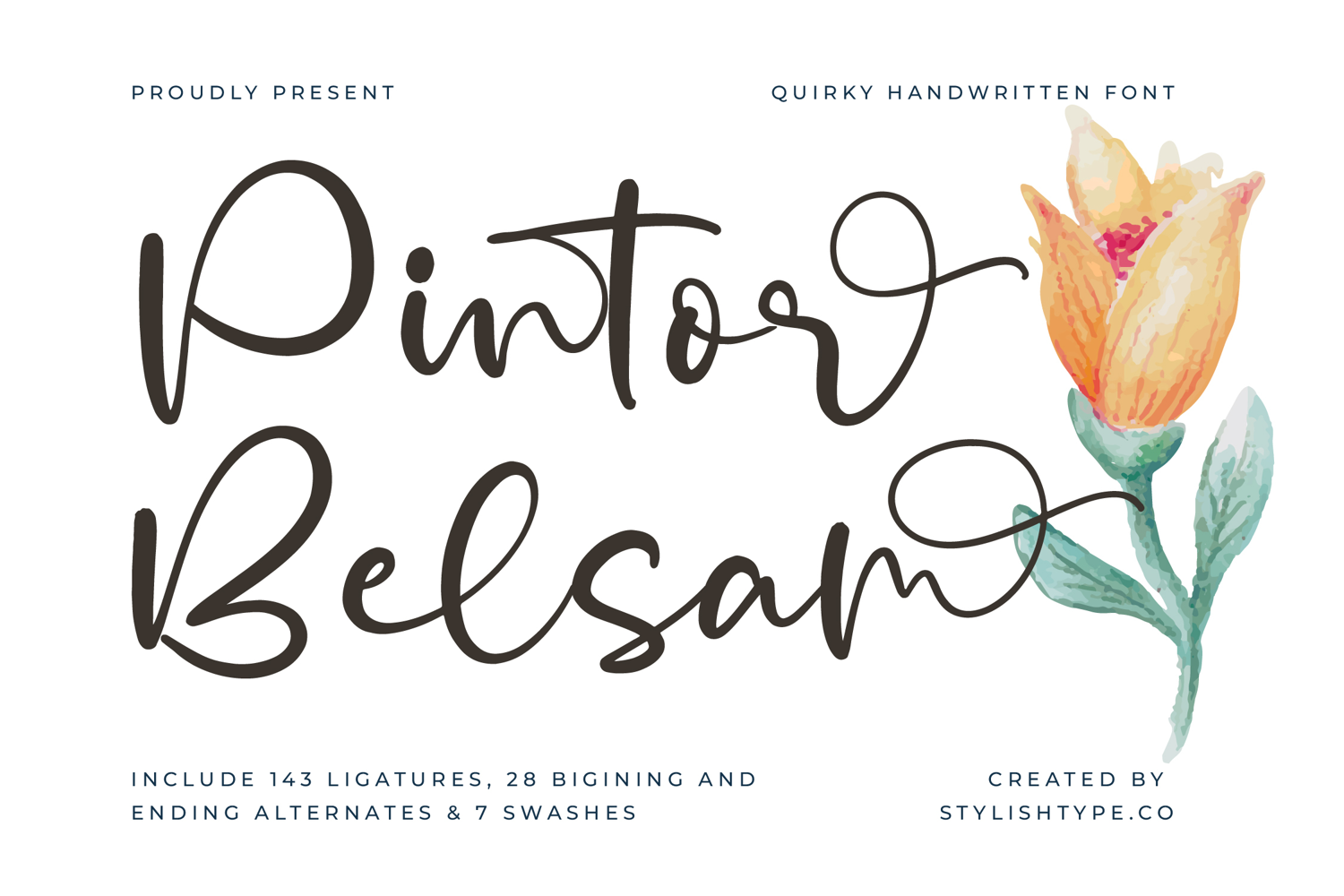
Pintor Belsam - Quirky Handwritten Font
Pintor Belsam
Pintor Belsam Italic
Pintor Belsam - Quirky Handwritten Font. Boasting an impressive 143 ligatures, 28 beginning and ending alternates, and 7 swashes, this font provides infinite customization possibilities. Designers can craft truly unique headline compositions, ensuring no two words ever look exactly alike, maximizing the handmade feel for premium visual storytelling and bespoke design work.